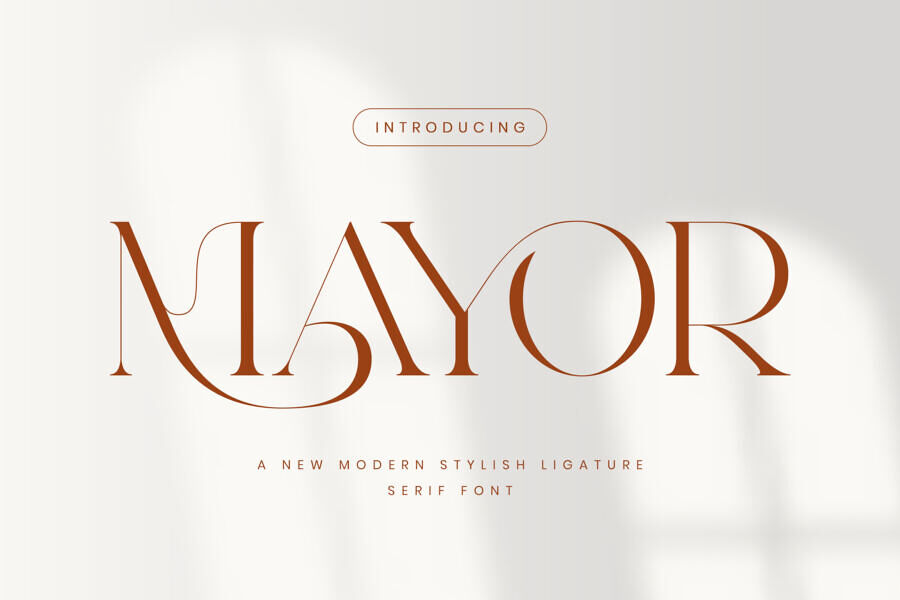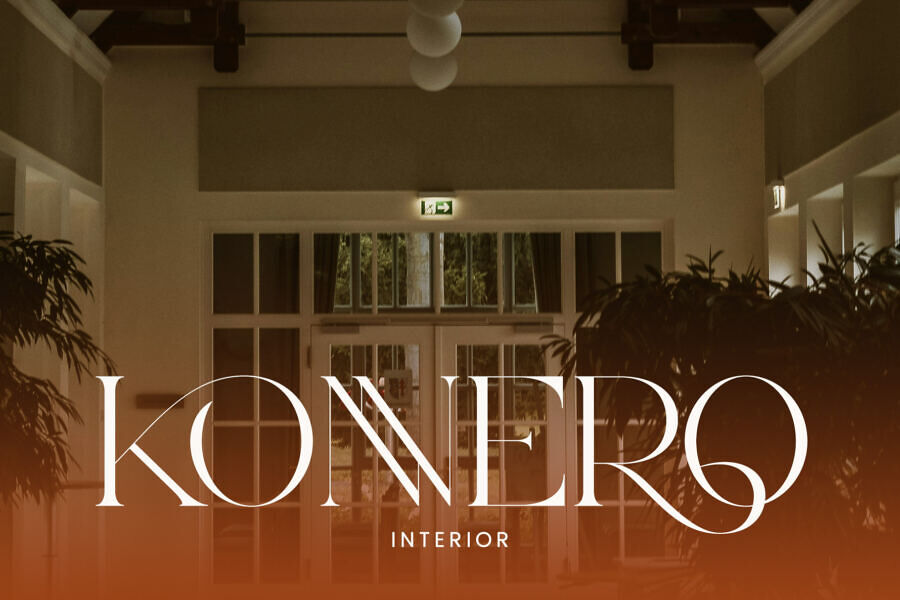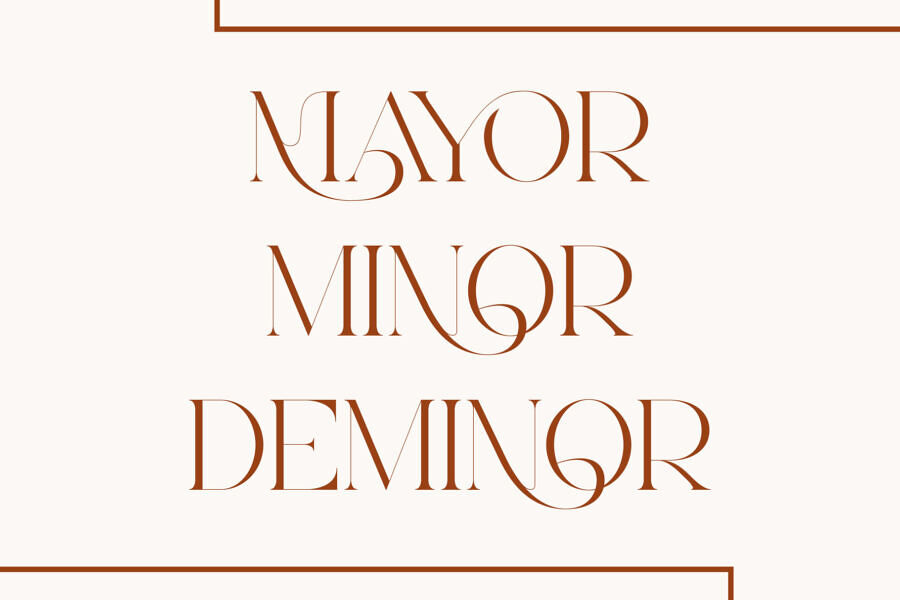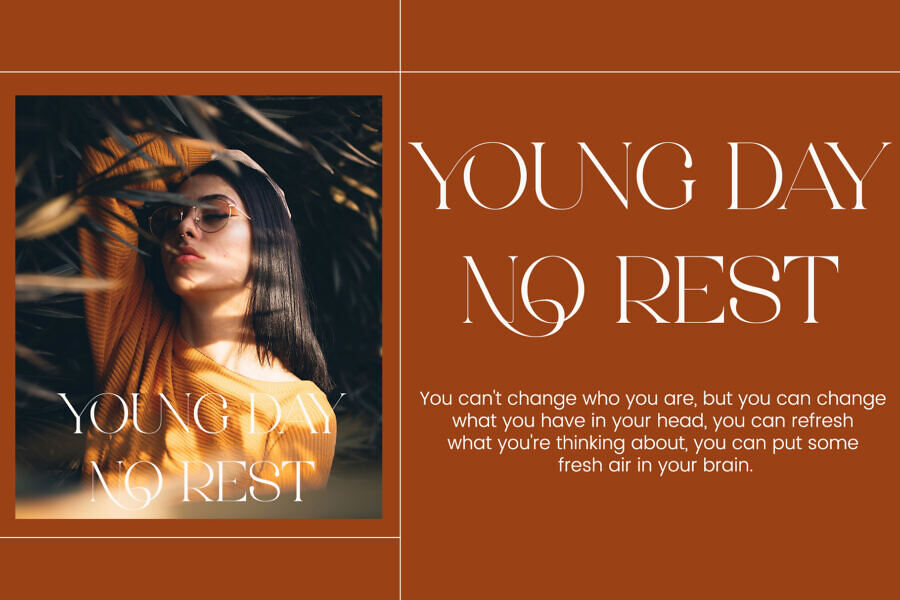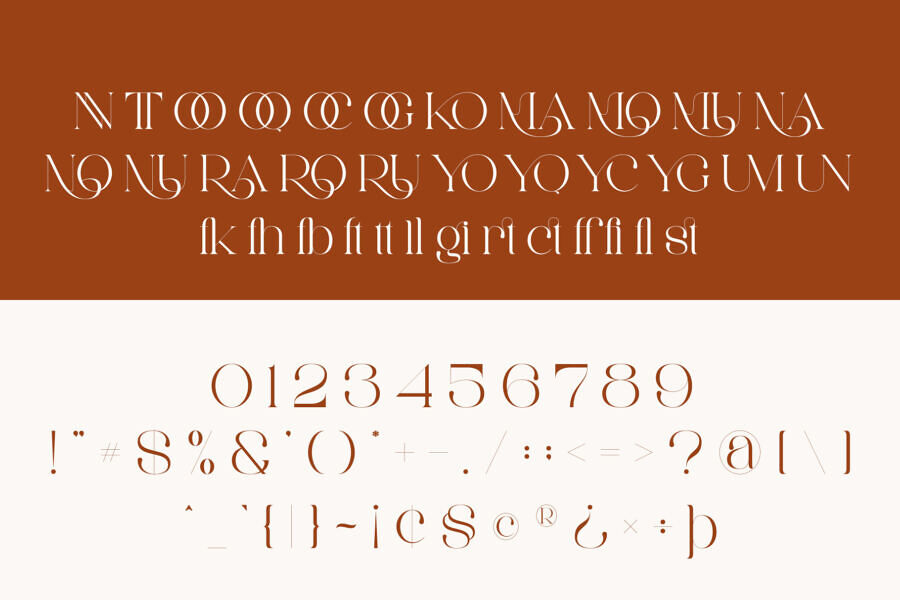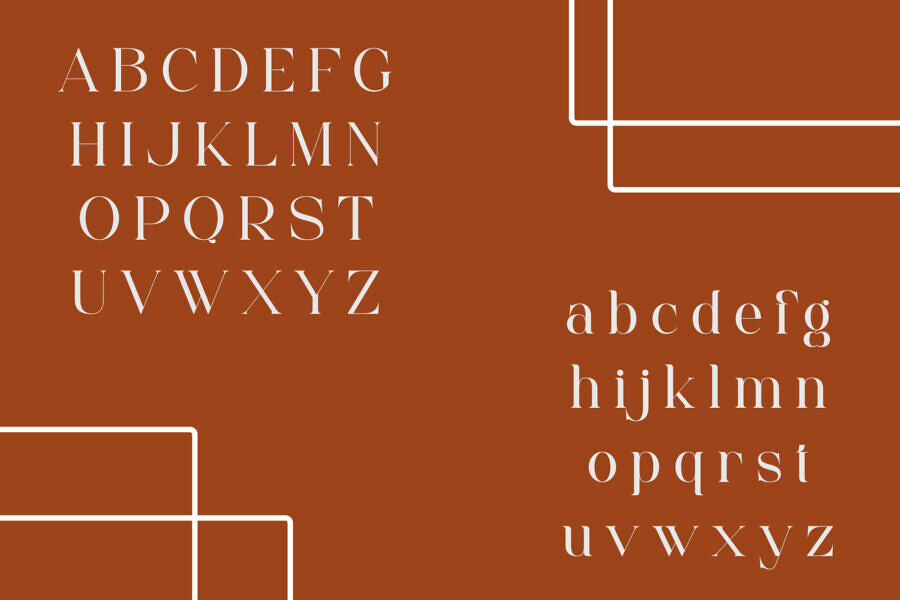
Mayor Font
Mayor is a modern serif font that pairs classic structure with creative ligatures and artistic curves. Ideal for upscale branding, wedding invitations, and chic editorial work, Mayor exudes refined sophistication and visual charm in every character.